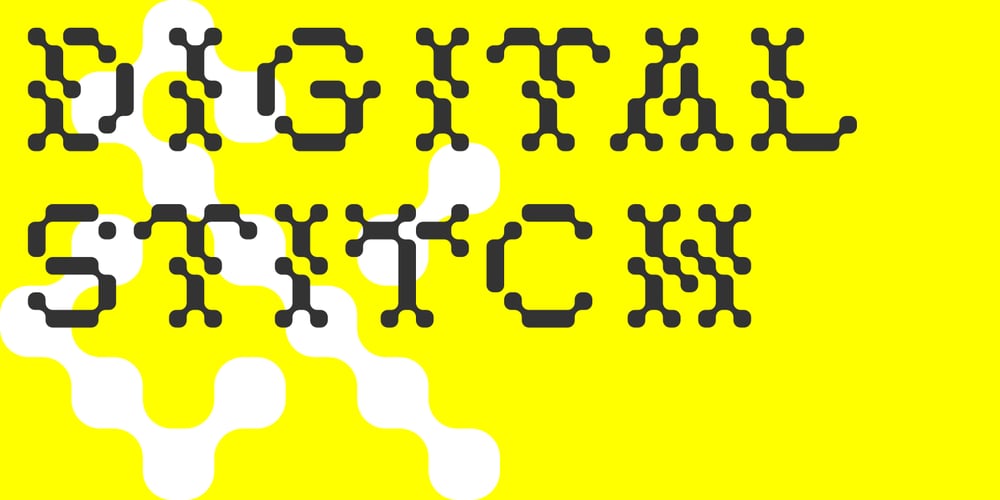
Digital Stitch
Digital Stitch font
Digital Stitch Font Family was designed by Lukyan Turetskyy and published by 2D Typo. Digital Stitch contains 1 styles and family package options. Digital Stitch is the embroidery of digital era. This font is a blend of pixel stylization of traditional cross-stitch embroidery and stylization of printed circuit boards. There is a big collection of ornaments in the symbols set.